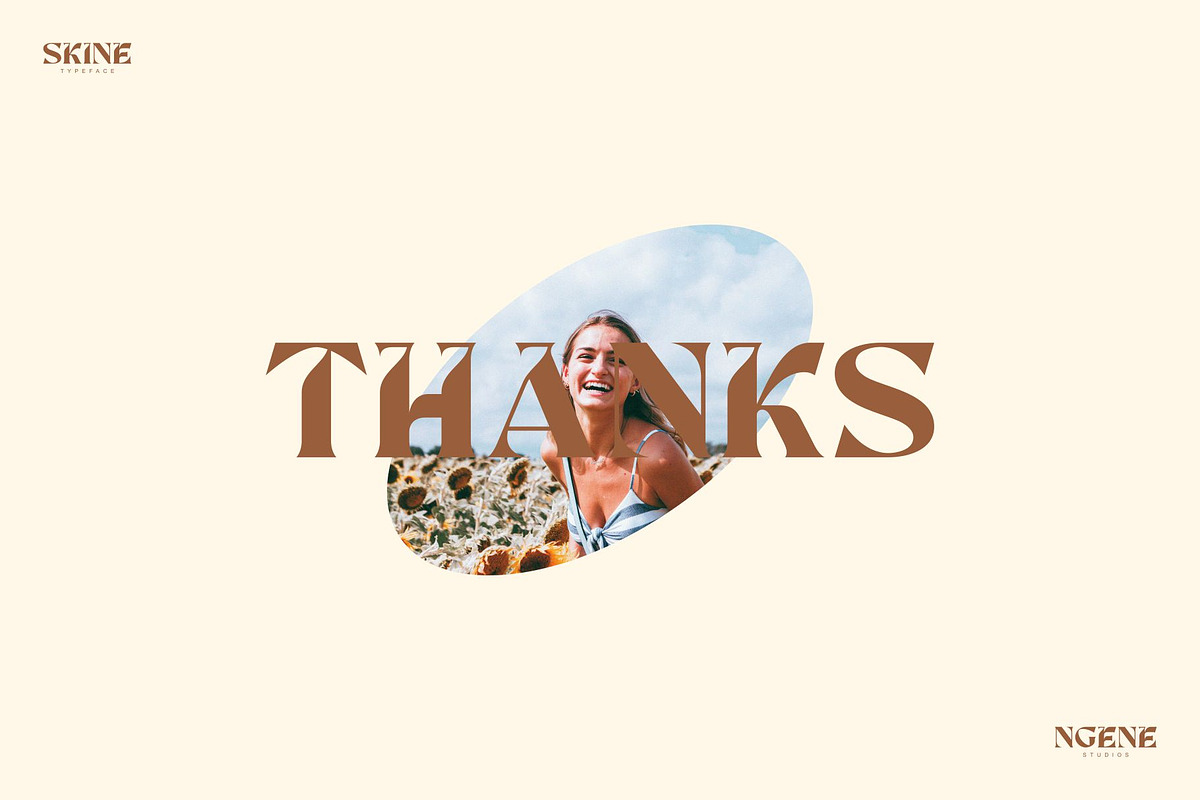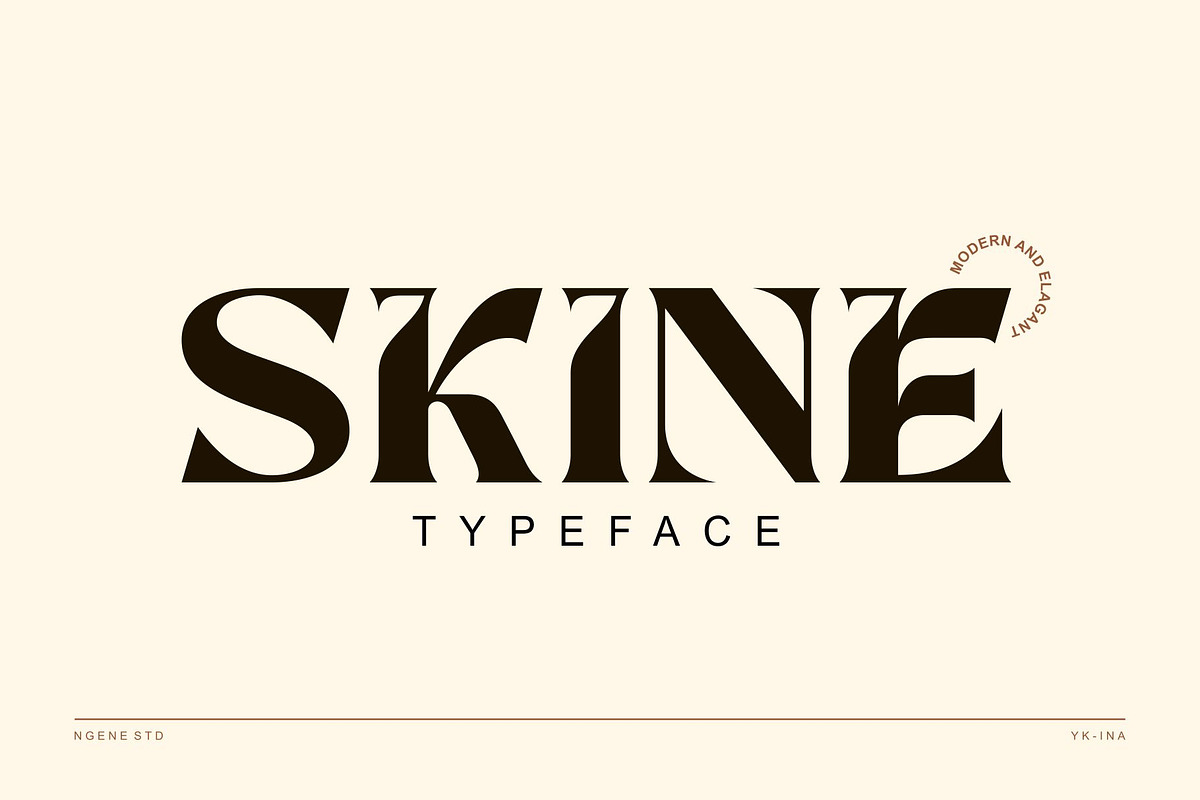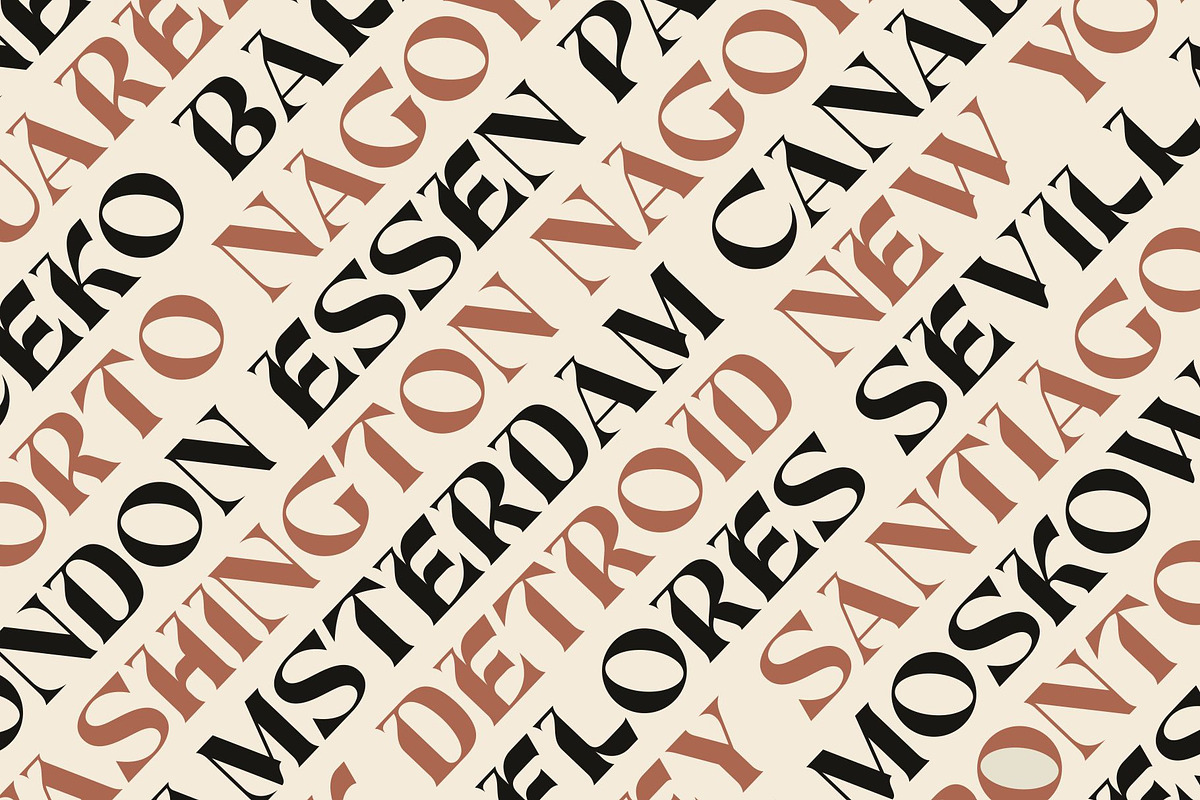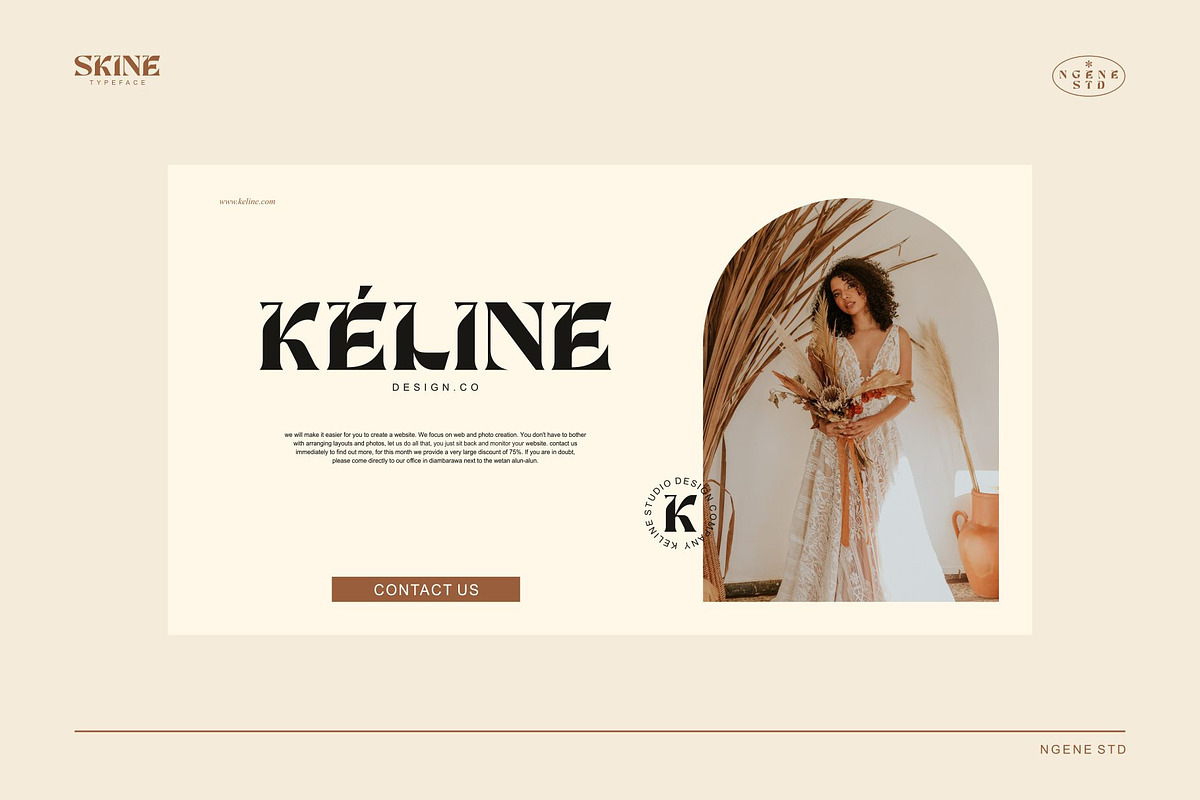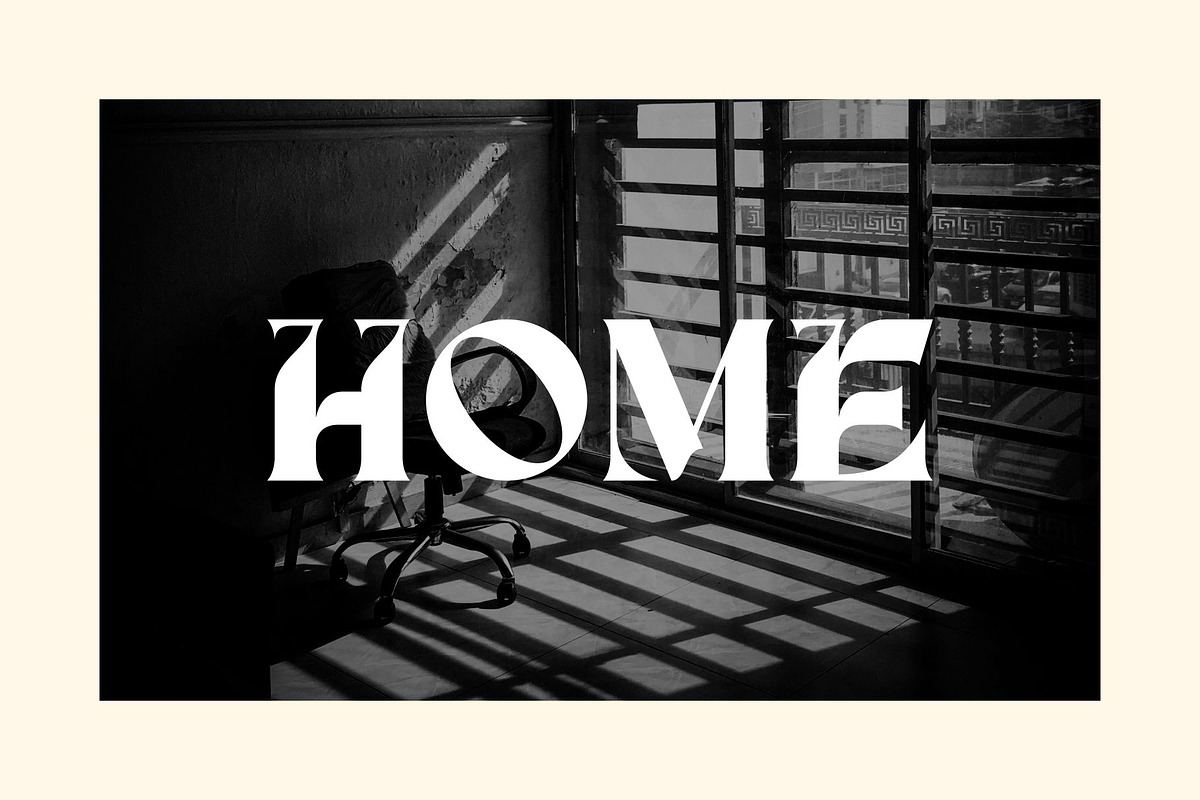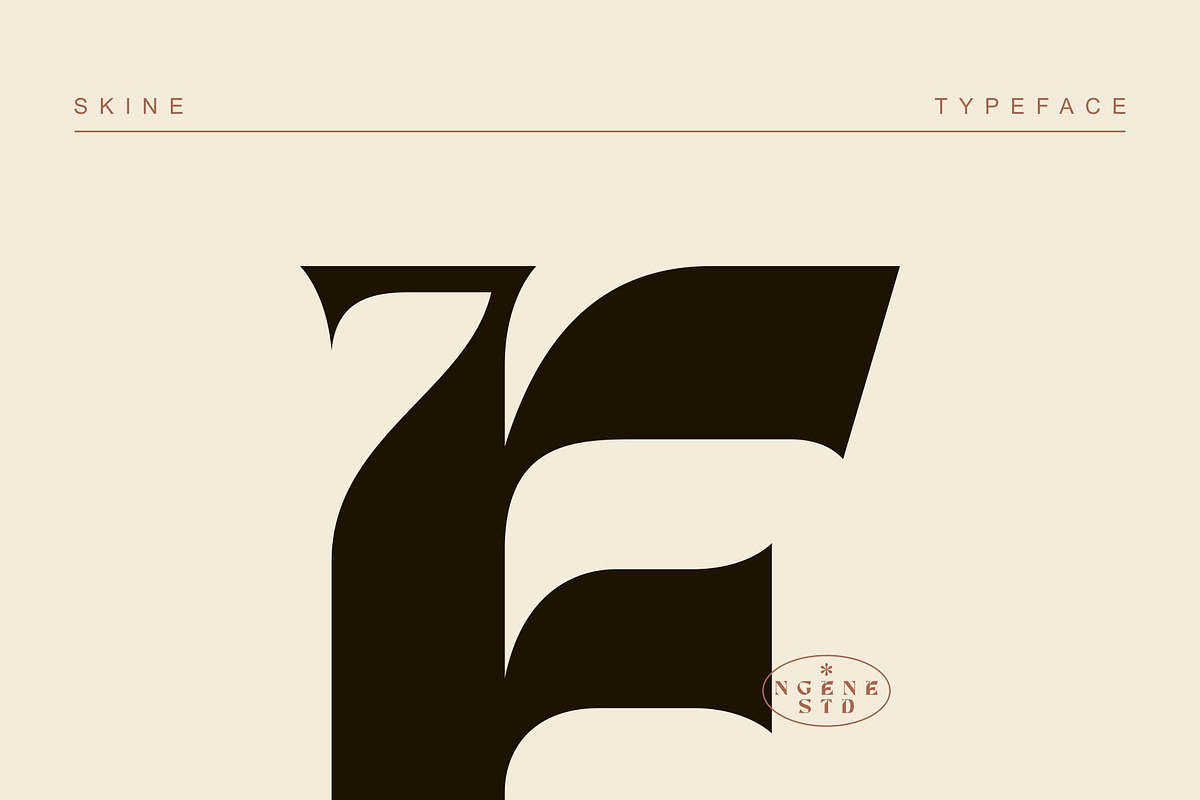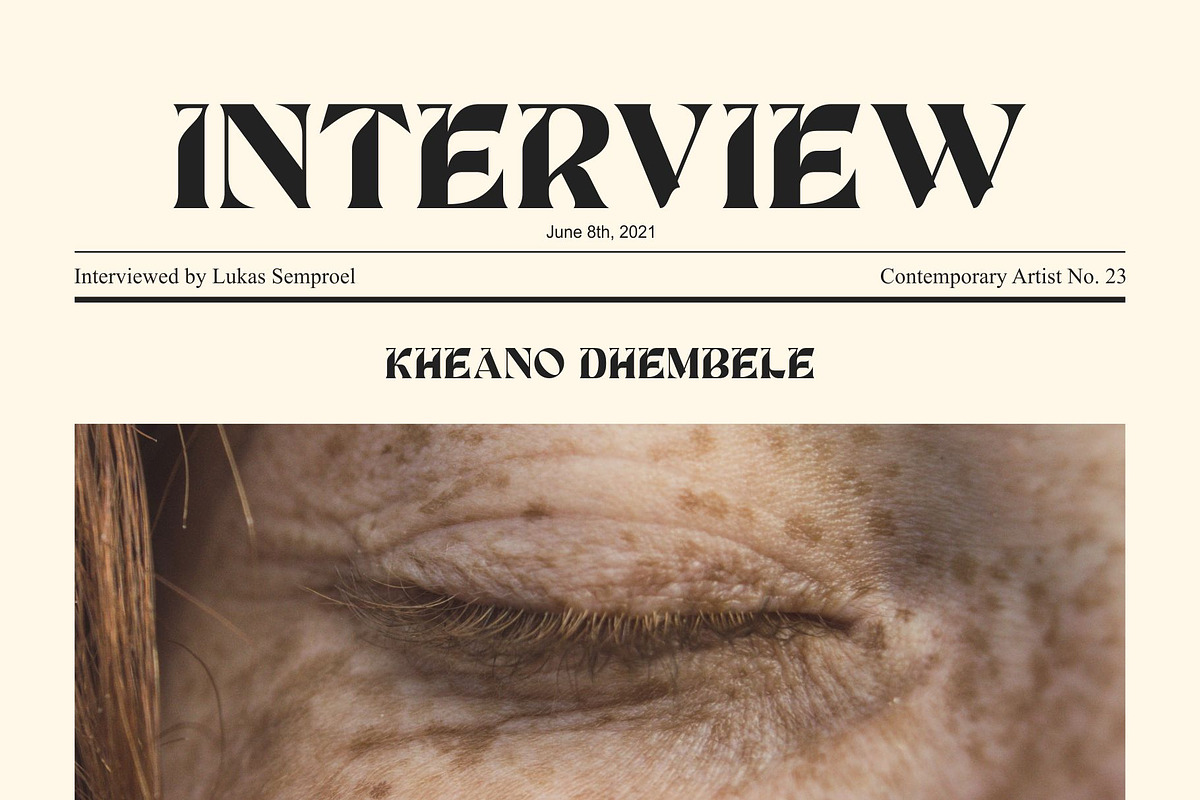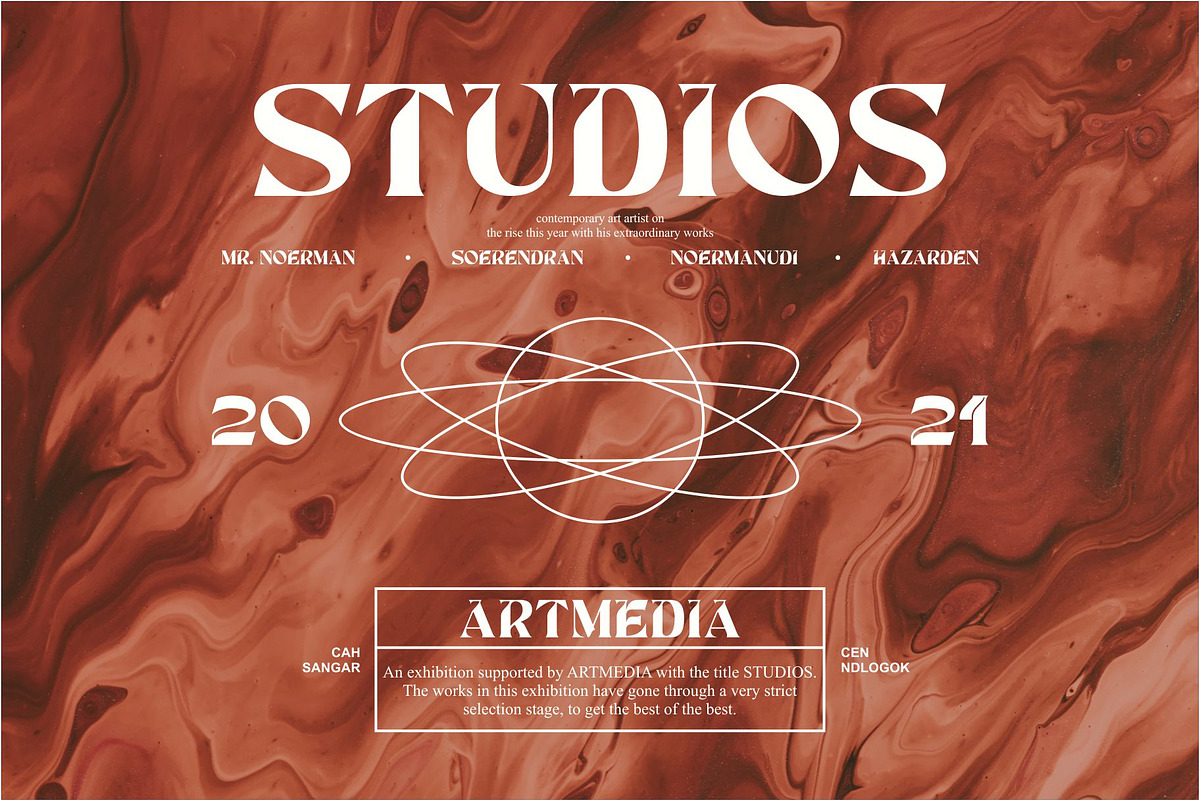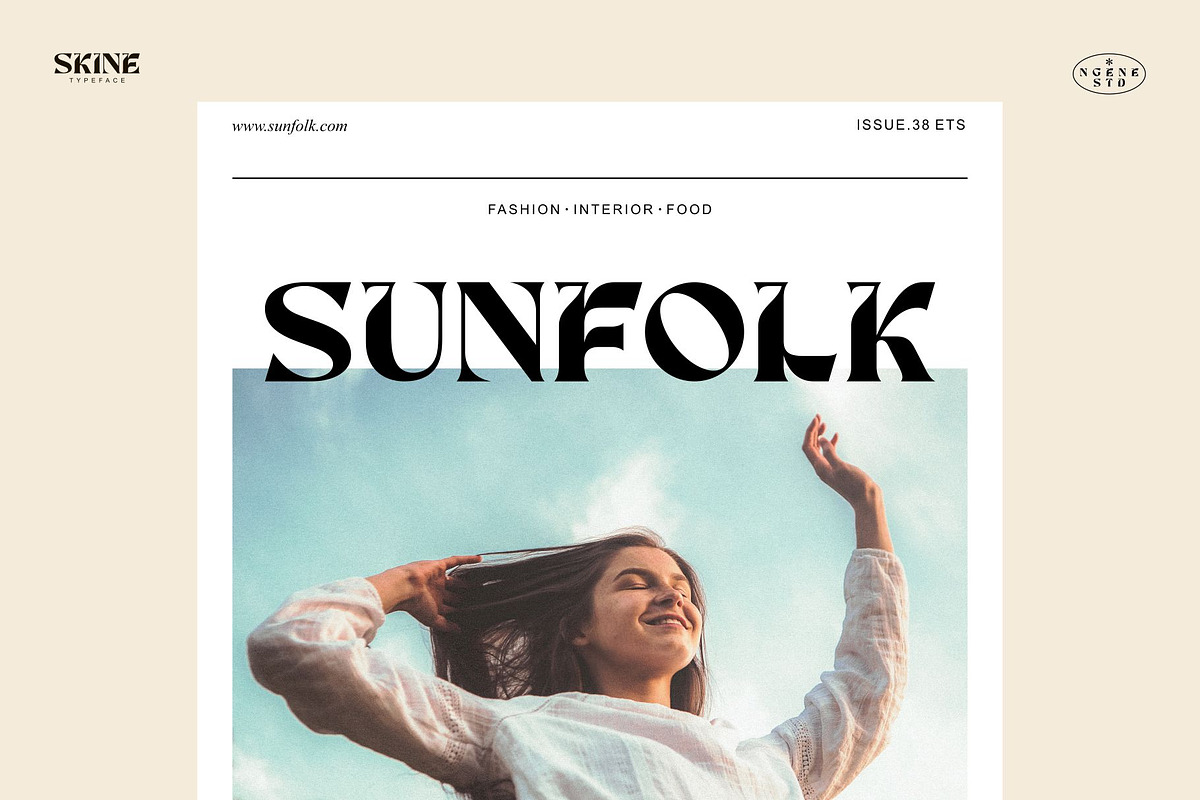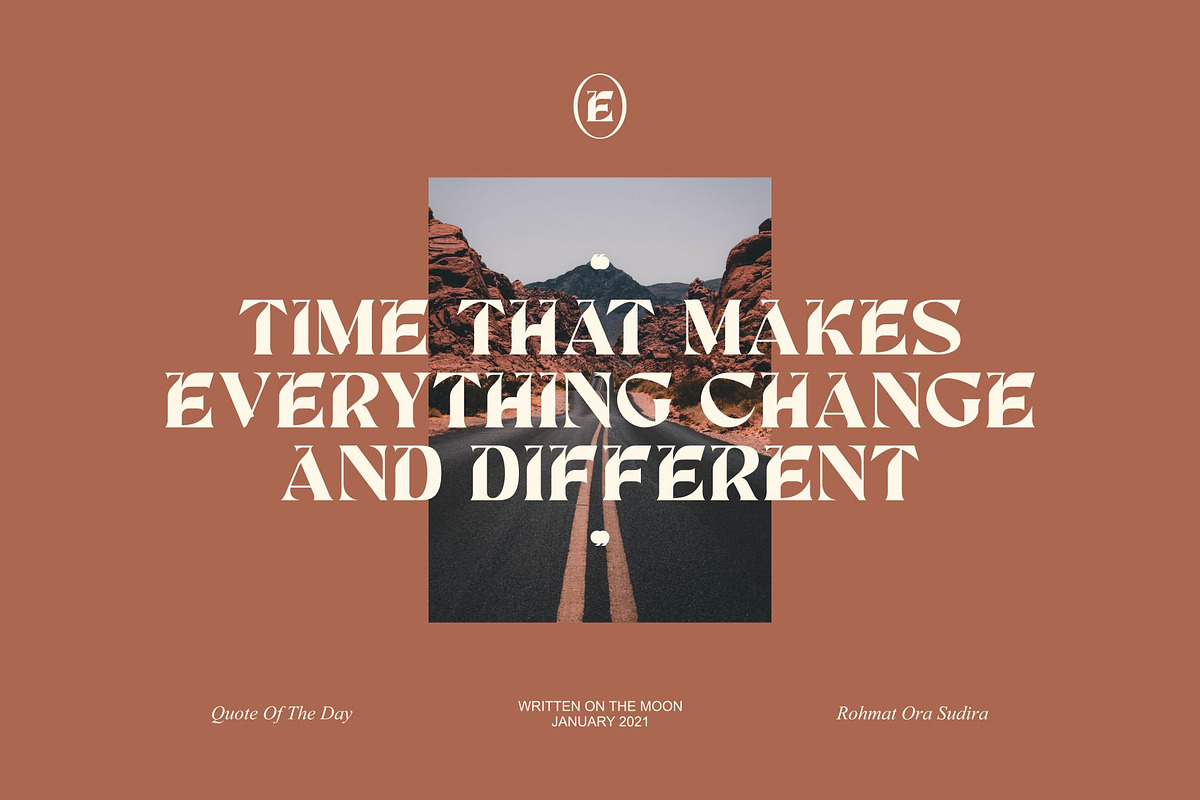
Skine
INTRODUCING
SKINE TYPEFACE comes with a modern and elegant touch in it. This font is great for your design projects such as beautifying Instagram stories, instagram posts, logos, magazines, web designs, posters, invitation cards, packaging, badges, logo types, clothing designs, labels and much more.
SKINE also has multilingual support, so you can use the language you want to use. This font has followed the design developments this year, so your designs will be more attractive and elegant later.